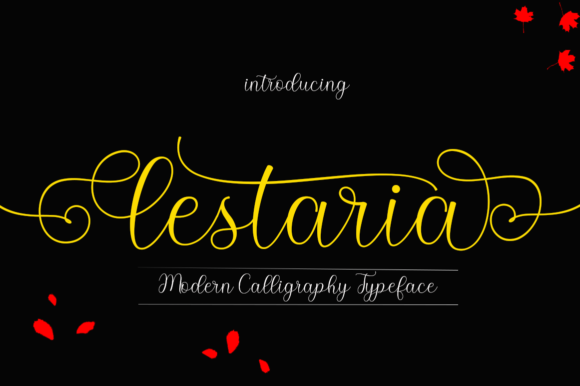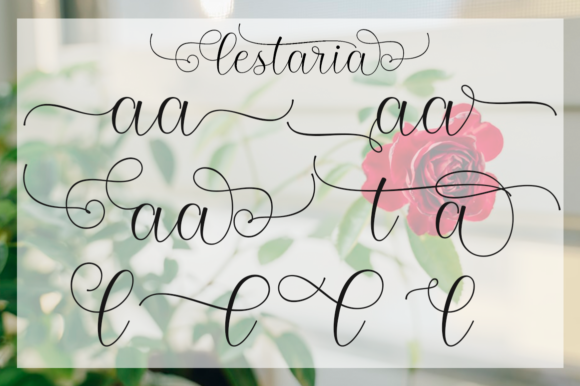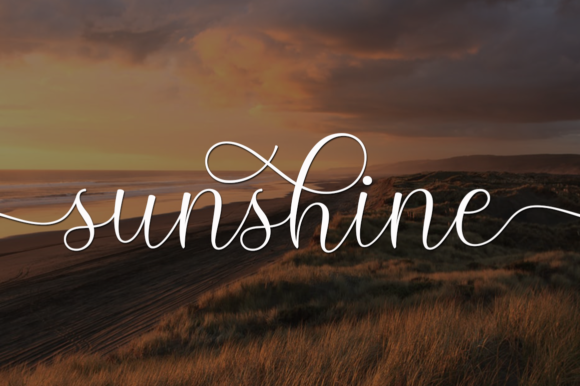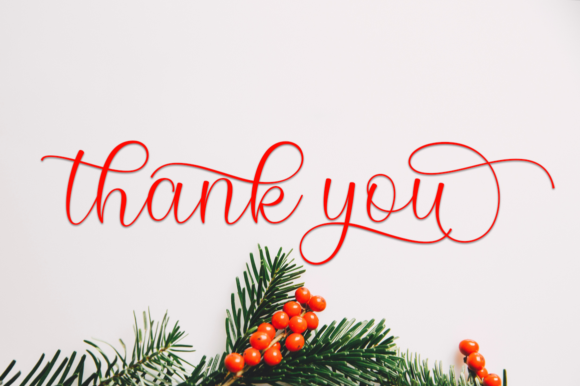
Lestaria Font
About Lestaria Font
With its incredibly magical and elegant swashes, Lestaria makes a great addition to any craft library. This gorgeous script will add a sophisticated feel to any design project!